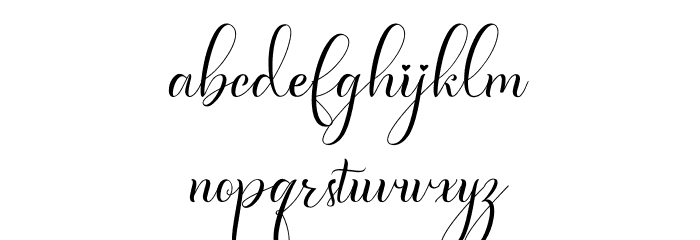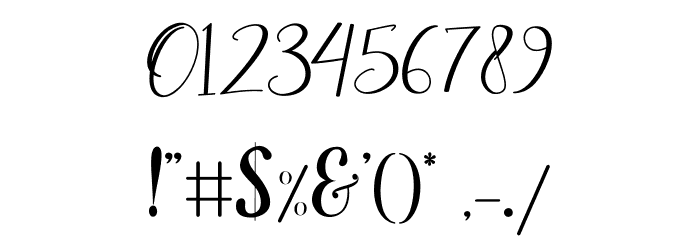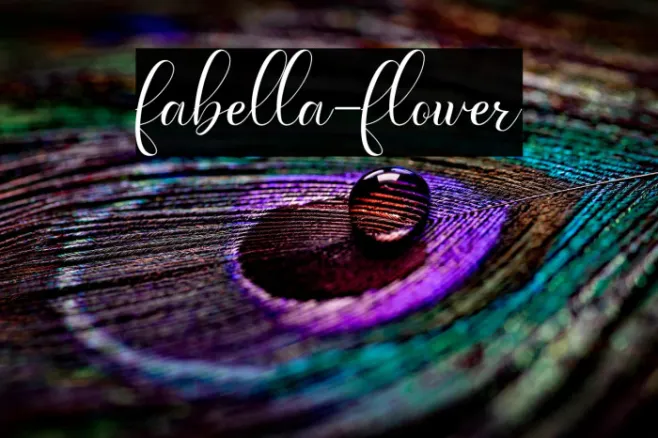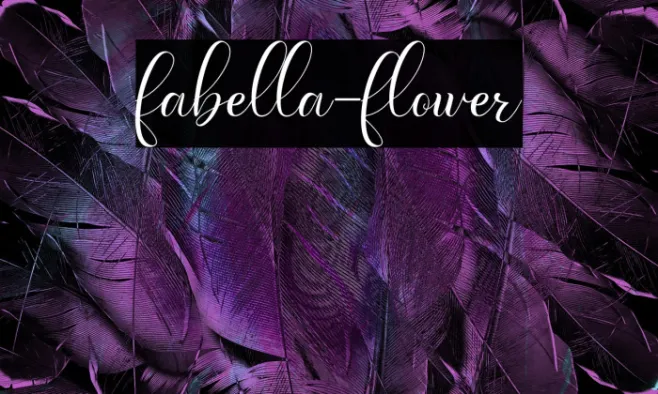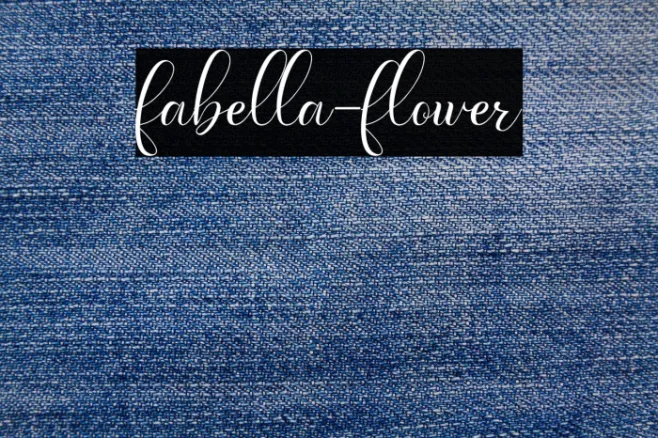
fabella-flower Font
This elegant script font features a flowing, cursive style with delicate, sweeping strokes and a refined, sophisticated appearance. The uppercase letters are characterized by their dramatic flourishes and loops, while the lowercase letters maintain a graceful continuity. The numerals and special characters complement the overall aesthetic with their stylish curves and balanced proportions. This font exudes a sense of luxury and artistry, making it ideal for projects that require a touch of elegance and class.
A refined script font with elegant, flowing strokes and sophisticated flourishes.
- Proposed Projects: Ideal for wedding invitations, luxury branding, elegant stationery, and artistic logos.
- Overall Style: Elegant